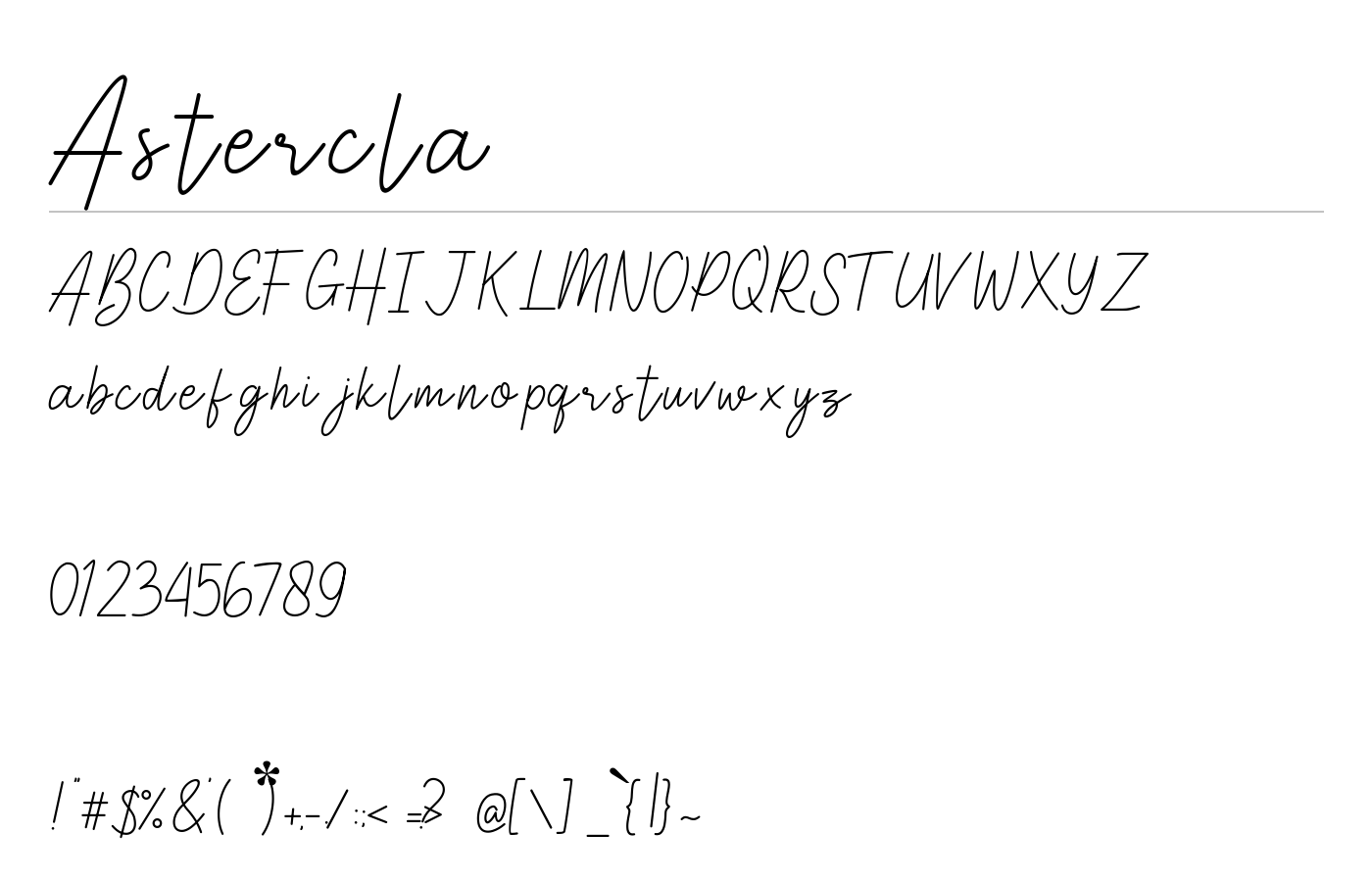
Astercla is a delicate, handwritten script font with a light weight and graceful, slender letterforms that evoke a casual yet elegant feel. Its tall, narrow characters feature fluid strokes and subtle variations in line width, making it perfect for personal branding, invitations, and fashion or beauty projects where a refined but approachable style is desired. This font shines in contexts that call for a stylish, modern touch with a natural, humanistic vibe.
Astercla Font
About Astercla Font